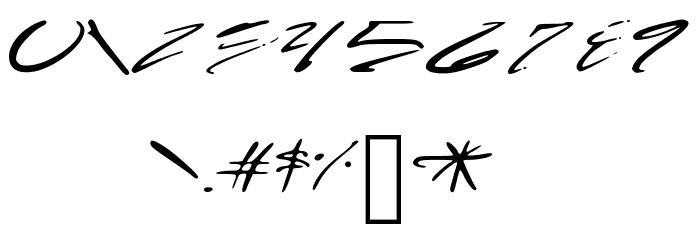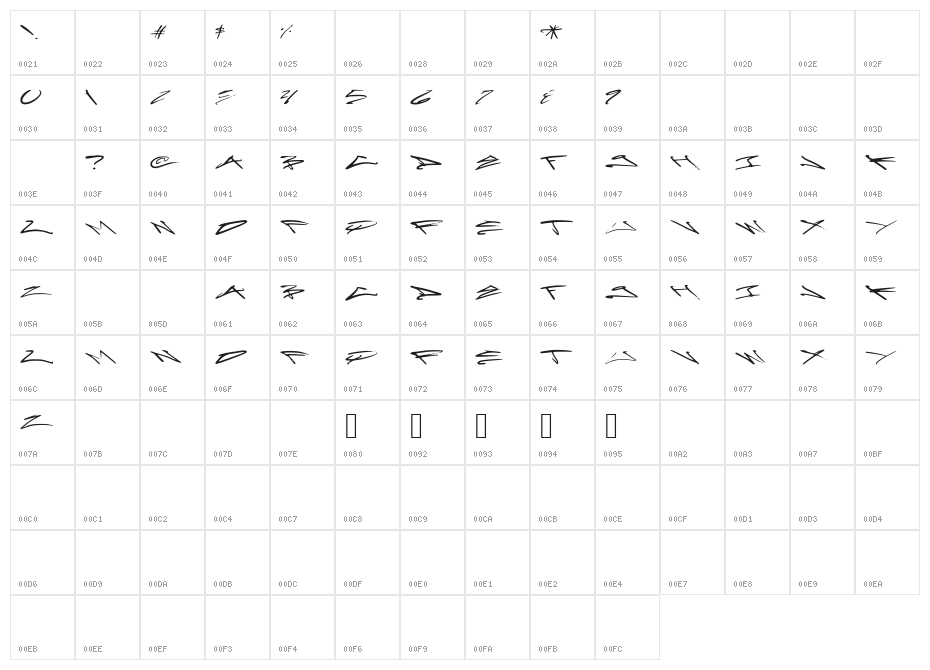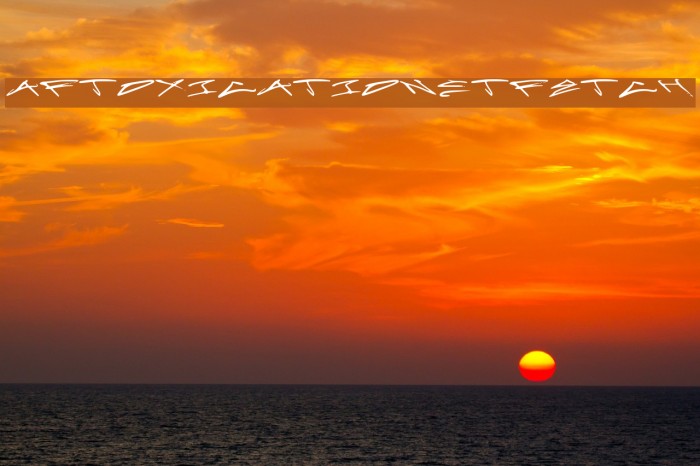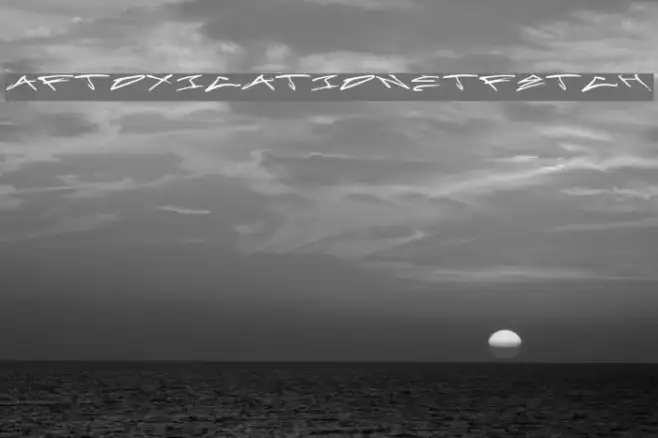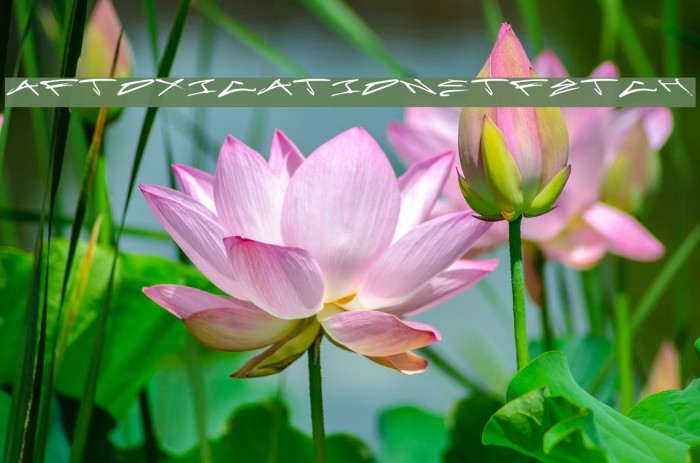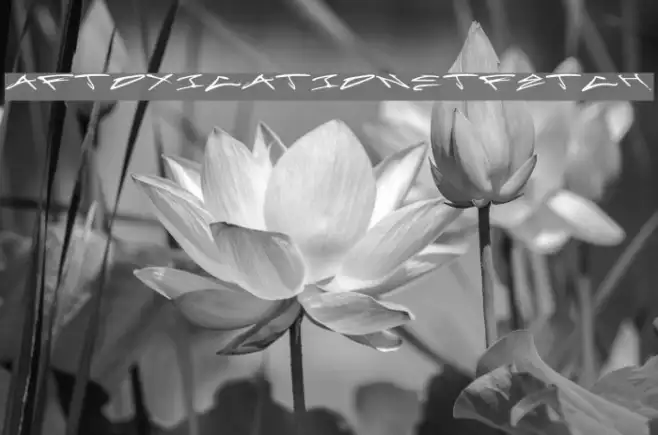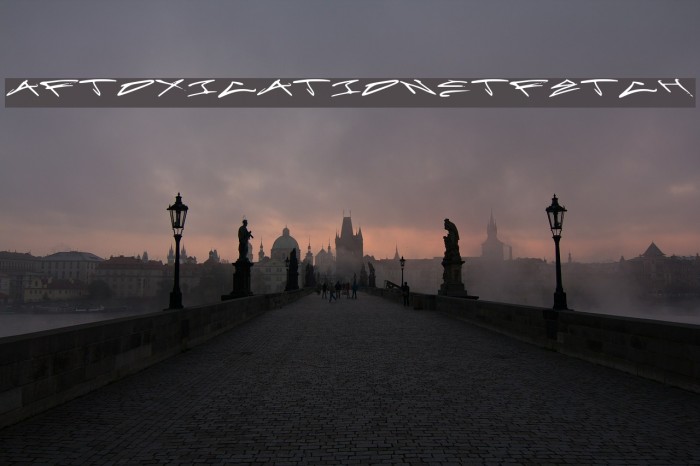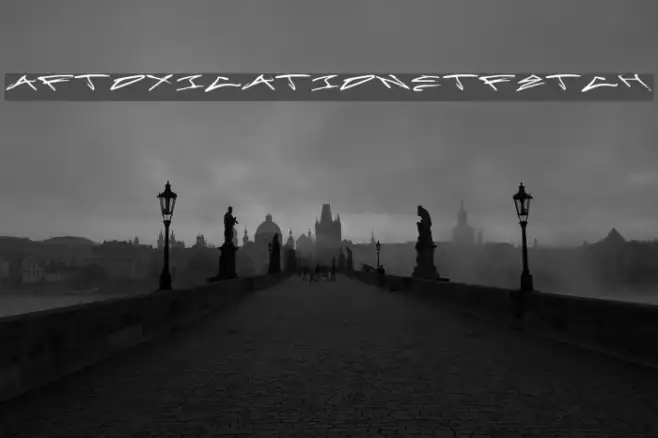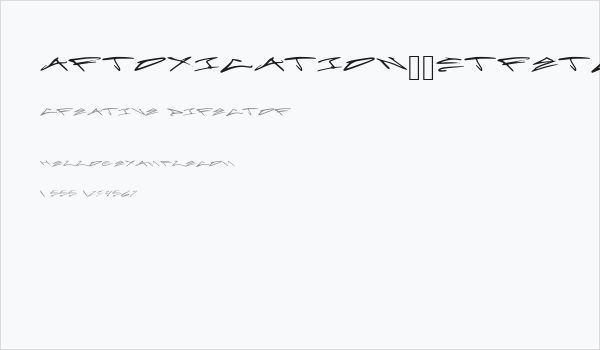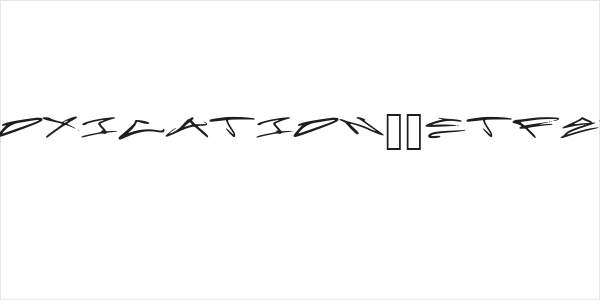
Artoxication_-_Stretch Font
Artoxication_-_Stretch Description
This font features a dynamic and edgy style, characterized by sharp, angular strokes and a sense of motion. The letters are elongated and slightly slanted, giving an impression of speed and energy. The uppercase and lowercase characters maintain a consistent design, with a unique flair that makes each letter stand out. The numerals follow the same stylistic approach, ensuring uniformity across all characters. Special characters are creatively integrated, adding to the font's overall aesthetic appeal. This font is ideal for projects that require a bold and unconventional look.